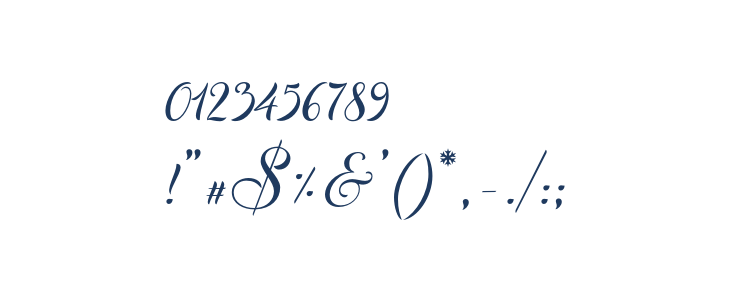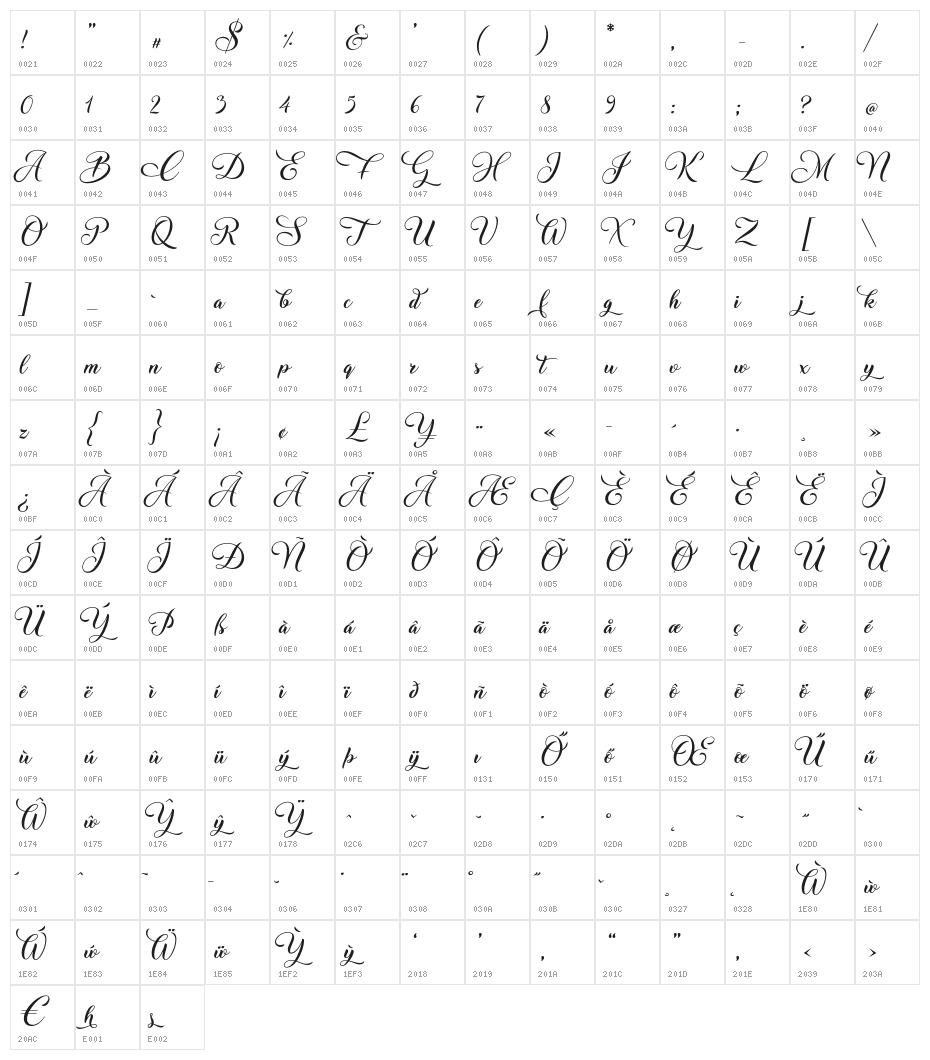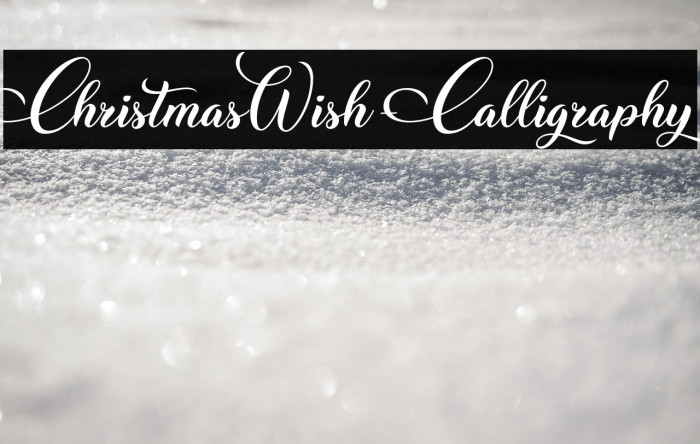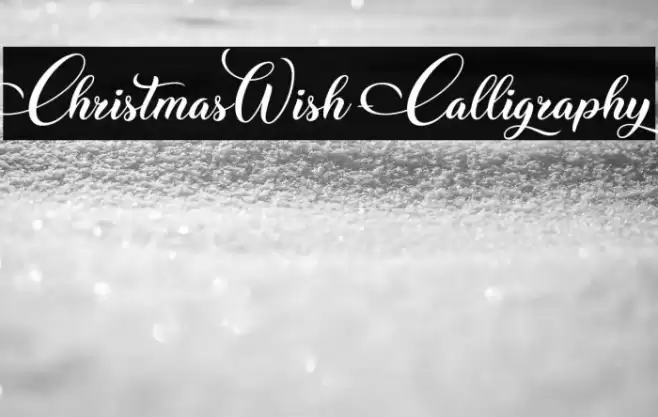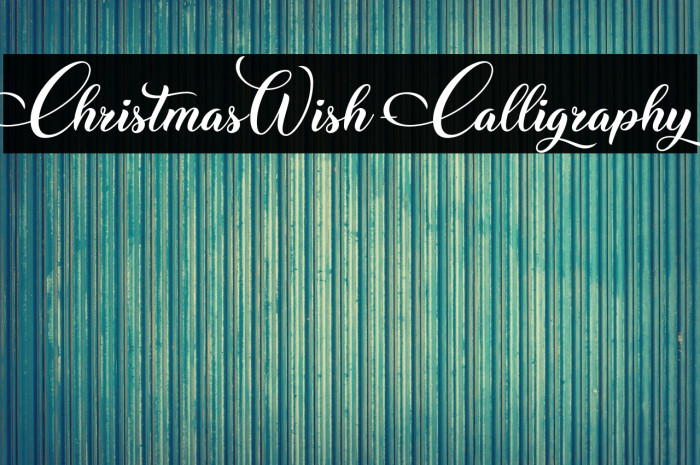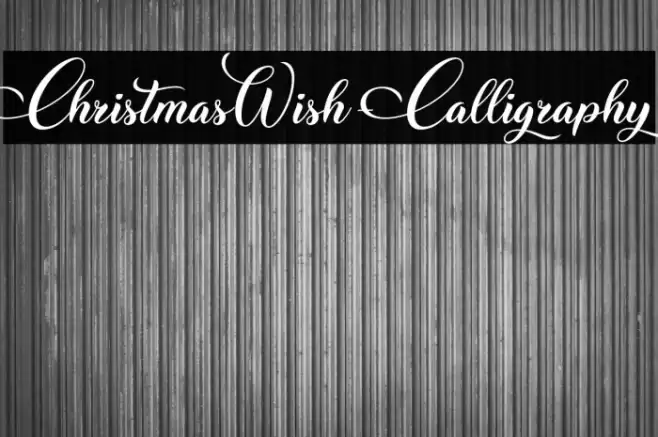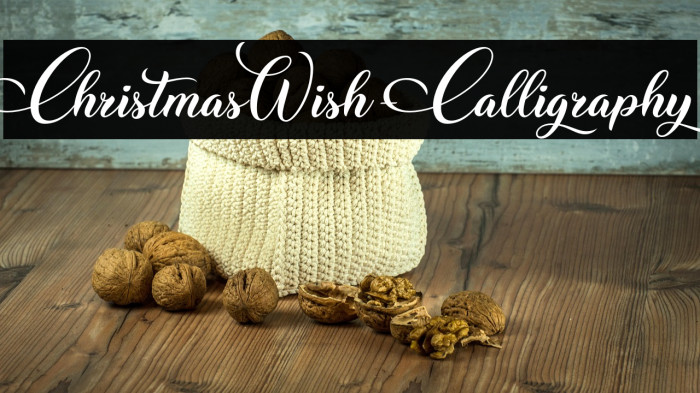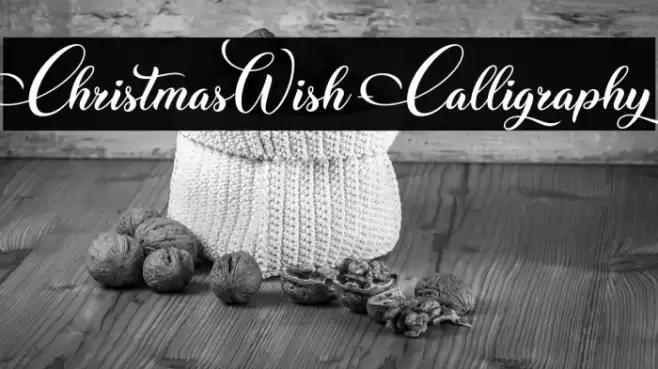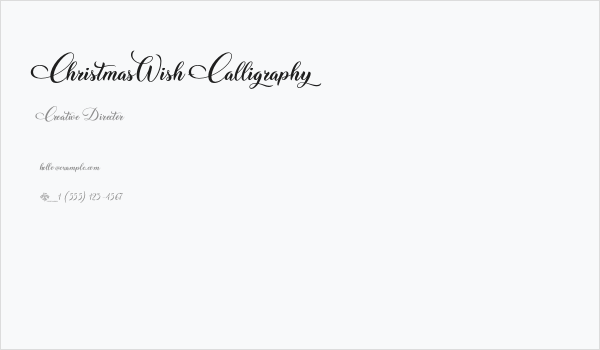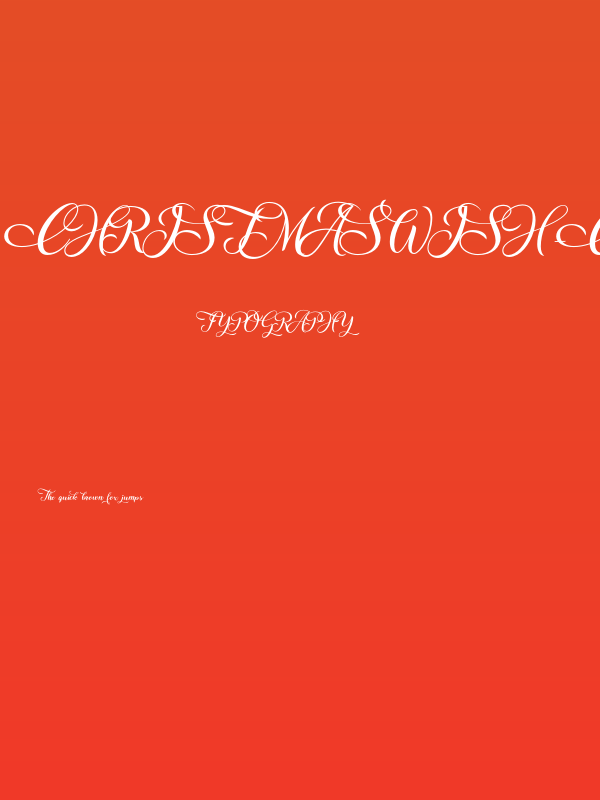
ChristmasWish-Calligraphy Font
ChristmasWish-Calligraphy Description
This elegant calligraphy font features graceful, flowing strokes that create a sense of movement and sophistication. The uppercase letters are adorned with intricate loops and flourishes, adding a decorative touch that enhances the overall aesthetic. The lowercase letters maintain a consistent style, with smooth curves and a slightly slanted orientation, contributing to a harmonious and cohesive look. The numerals are equally stylish, with a balanced design that complements the letterforms. Special characters are thoughtfully integrated, maintaining the font's ornate and artistic qualities. This font exudes a sense of luxury and refinement, making it ideal for projects that require a touch of elegance.
| Proposed Projects | Ideal for wedding invitations, greeting cards, luxury branding, and elegant packaging. |